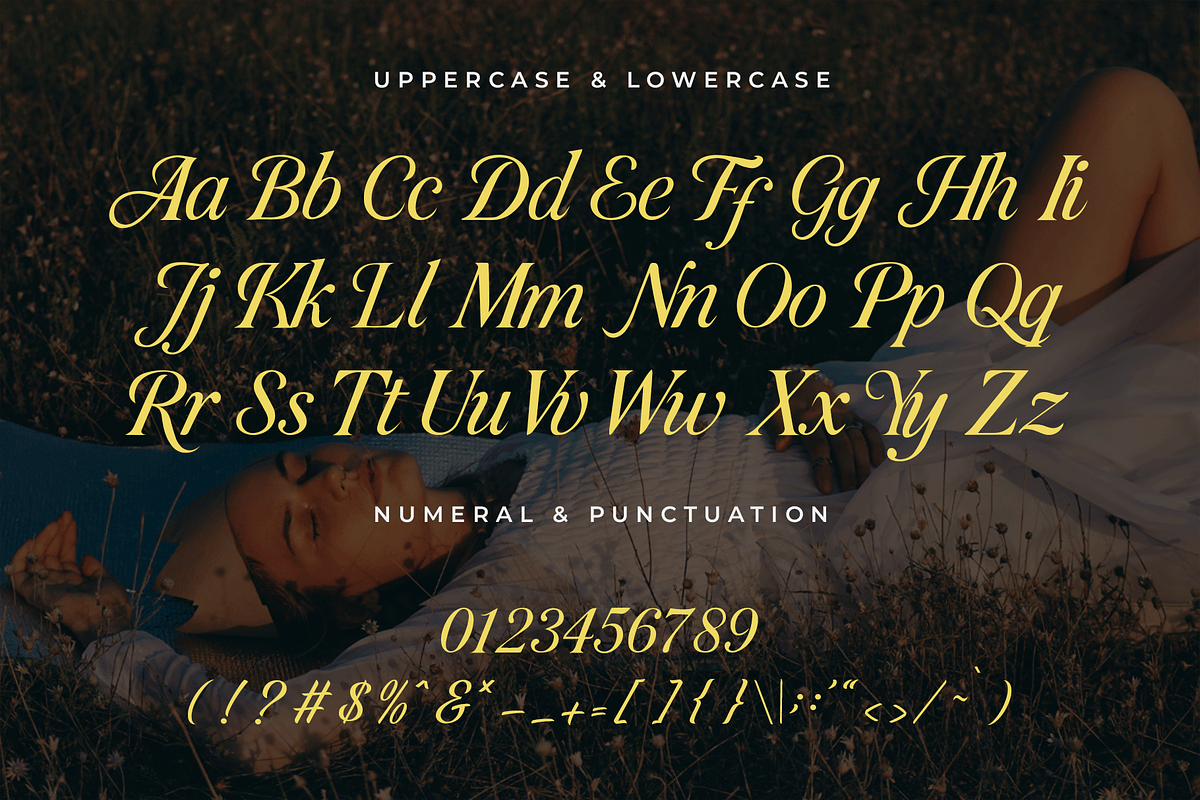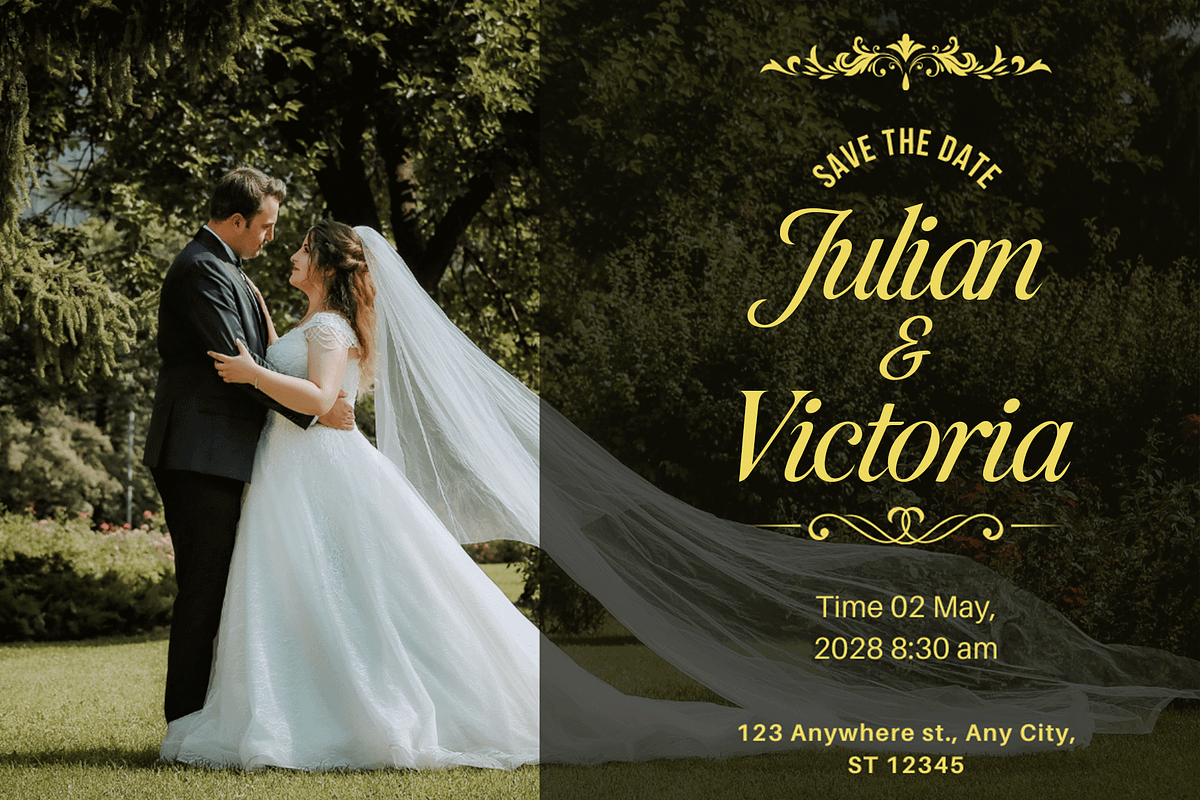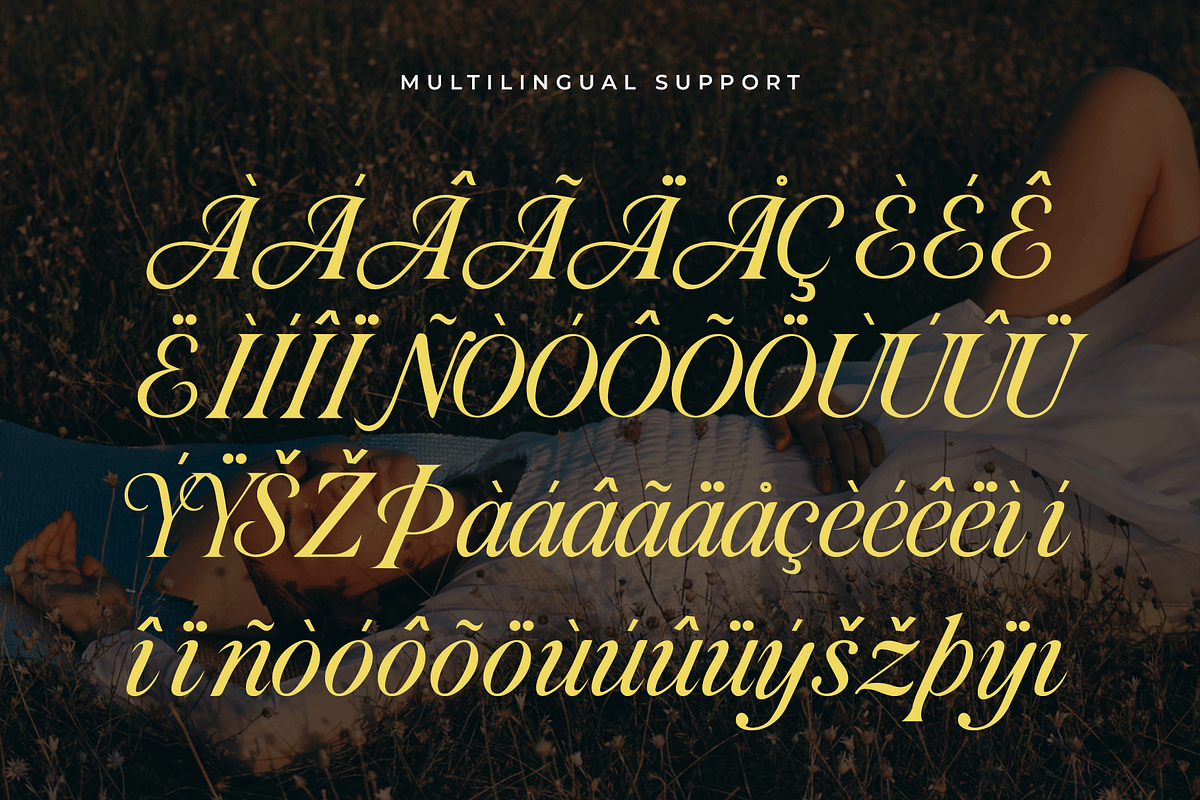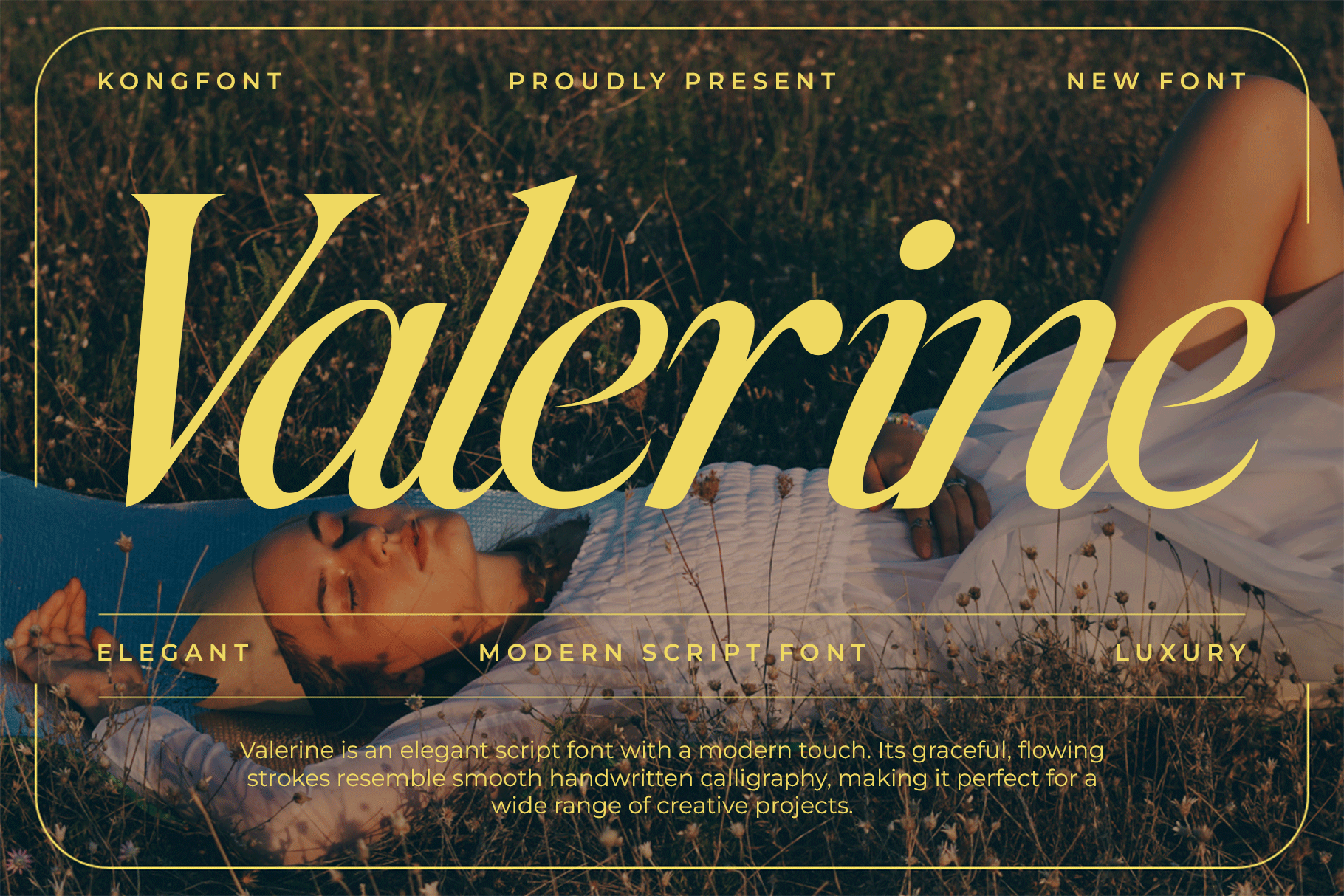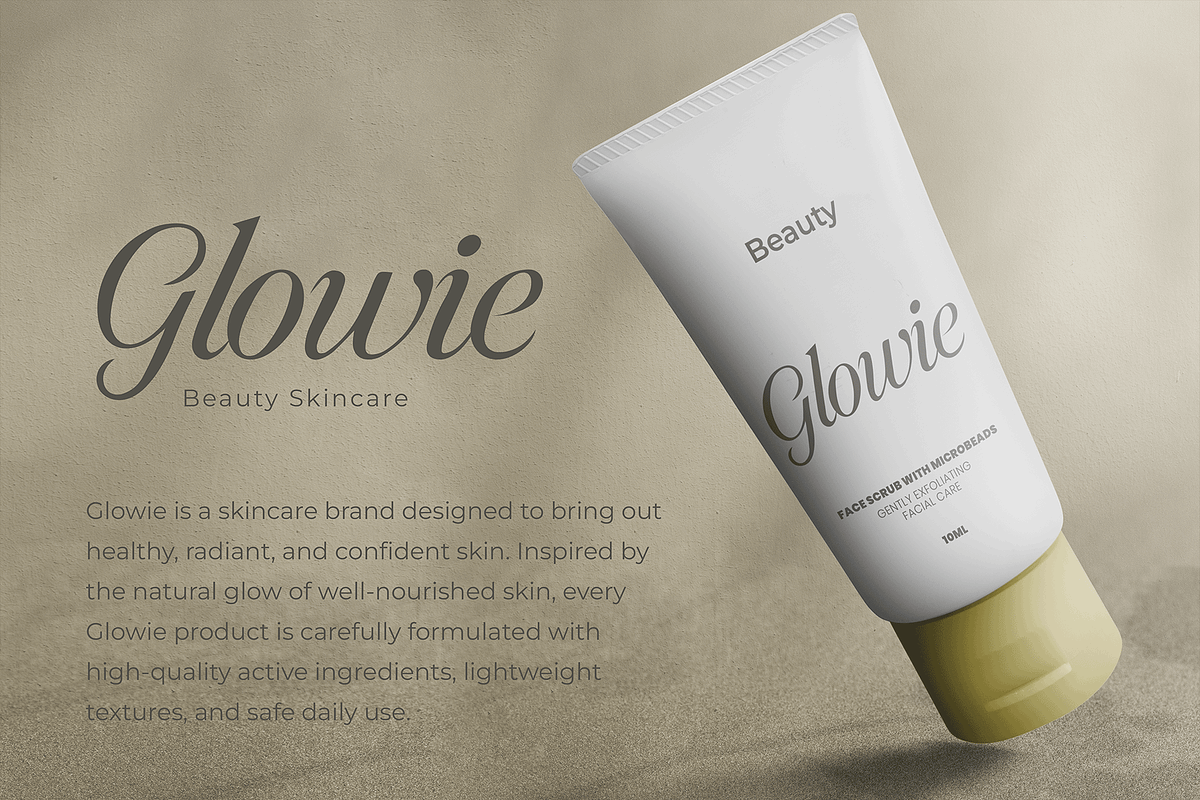
Valerine – Modern Script Font
Introducing Valerine, a modern script font designed to add a touch of elegance and charm to your creative projects. With its smooth curves, flowing strokes, and natural handwritten style, Valerine captures the beauty of modern calligraphy while maintaining readability and versatility.
Perfect for logos, branding, wedding invitations, social media graphics, packaging, and editorial designs, Valerine brings a personal and sophisticated touch to any project. Its graceful letterforms are crafted to exude warmth, creativity, and timeless appeal.
This script typeface includes uppercase, lowercase, numerals, punctuation, ligatures, and multilingual support, making it a complete tool for global design needs. Whether you want to create romantic, stylish, or luxurious designs, Valerine is your go-to script font for modern sophistication.